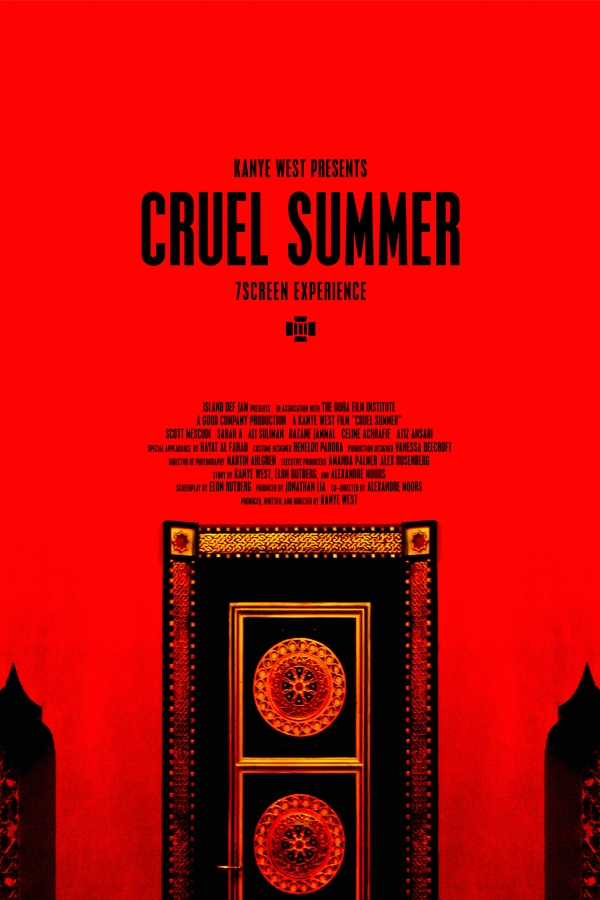
Cruel Summer Font
Fonts in UseCruel Summer is a 14-minute short film directed by Kanye West and inspired by his album of the same name. It tells the story of a young woman who falls in love with a man and becomes trapped in a time loop.
The condensed sans serif font used on the movie poster is likely to be AF Camberwell One. This is a commercial font, and you can find more information about it here.